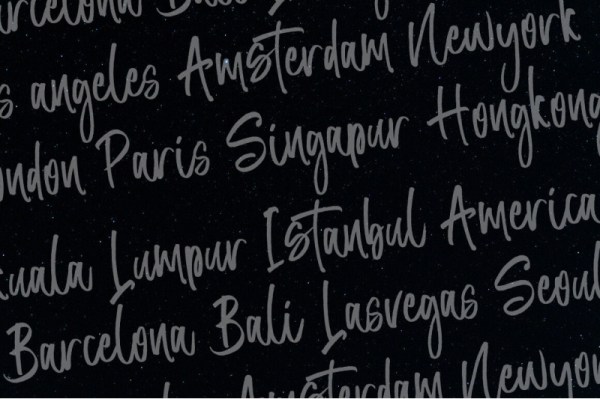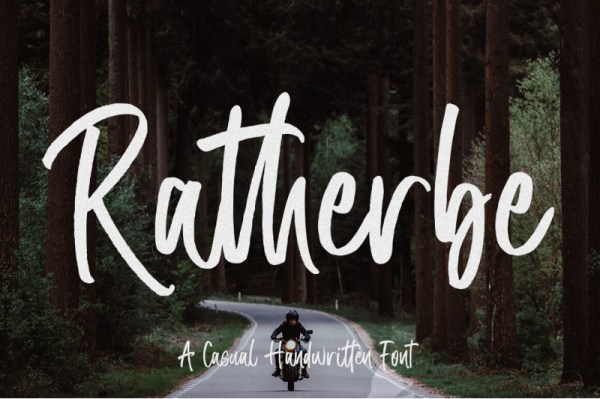
Freebie Wednesday: Ratherbe Font
Freebie Wednesday: Ratherbe Font.
A contemporary approach to design, Ratherbe is natural and handmade! Complete with upper and lower case letters, multi-language support, numbers, punctuation and some binders.